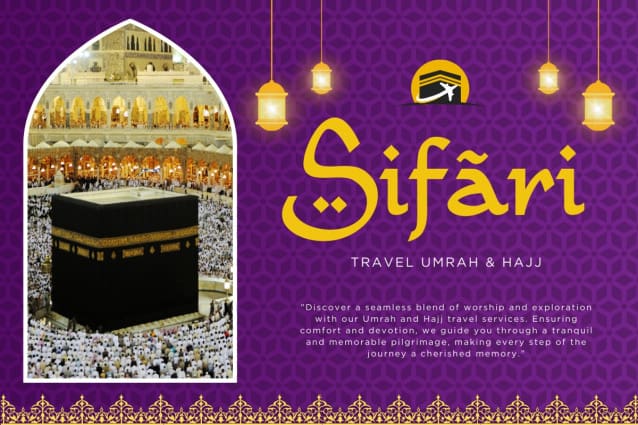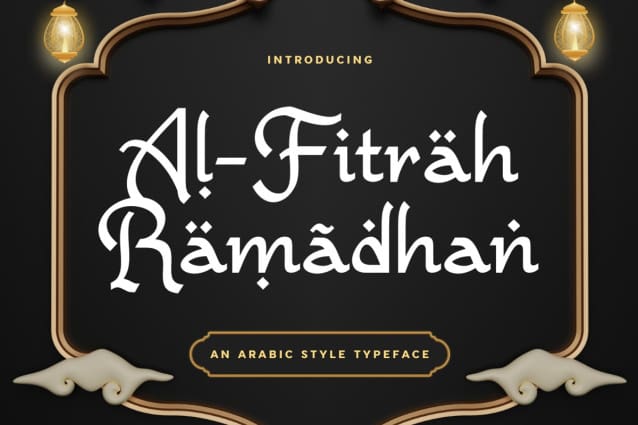
Al – Fitrah Ramadhan Font
Al – Fitrah Ramadhan Font, a font inspired by the sacred month of Ramadan. With its elegant letterforms and intricate details, this font captures the essence of spirituality and reflection associated with Ramadan. Ideal for Ramadan-themed designs such as greeting cards, posters, or social media graphics, “Al-Fitrah Ramadhan” adds a touch of grace and reverence to your projects, honoring the significance of this holy time. Let this font enhance your Ramadan-related creations with its timeless beauty and cultural significance.